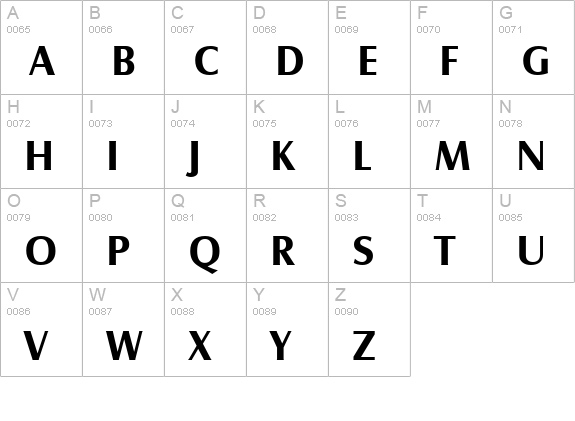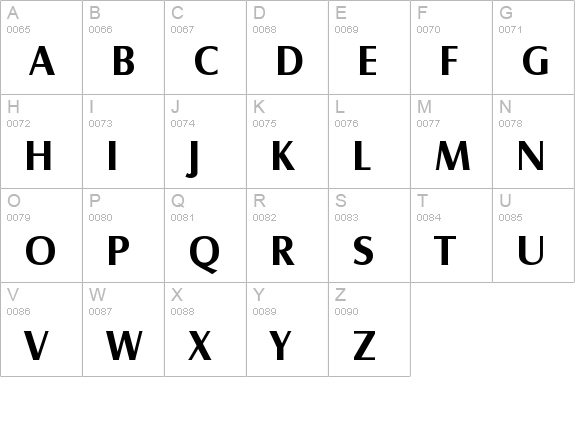
SalzburgSerial-Bold is a strong, high-contrast variant in the SalzburgSerial typeface family \xE2\x80\x94 well suited to headlines, attention-grabbing titles, and strong calls-to-action.
SalzburgSerial-Bold is a striking and bold font that exudes confidence and modernity. With its clean lines and strong presence, this font is perfect for making a statement in your designs. Whether you are creating posters, logos, or web graphics, SalzburgSerial-Bold will surely catch the eye of your audience. The best part? SalzburgSerial-Bold is available for free download at FontsMarket.com. This means you can easily access this powerful font without any cost, making it a valuable addition to your font library. Don't miss out on the opportunity to enhance your projects with the dynamic style of SalzburgSerial-Bold. Download it today and start creating impactful designs effortlessly.